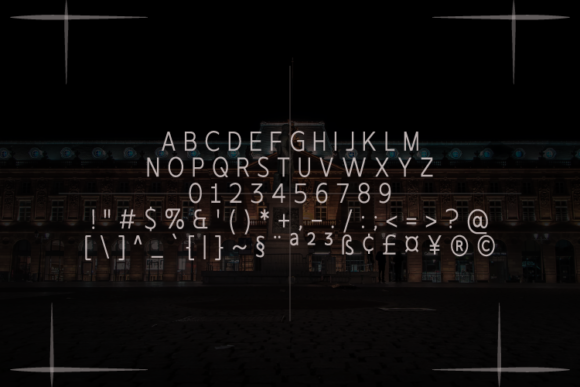
With its simple, casual, and clean feel, Arkelogue was exactly what I needed. The neat and beautiful arrangement of letters made it perfect for both formal and non-formal designs. In this article, I’ll share my experience with Arkelogue, its features, and how to make the most of it in your designs.
Arkelogue: A Closer Look
Arkelogue is a sans serif font that boasts an undeniably clean feel. Its simplicity makes it versatile and easy to pair with other design elements. Here are some key features:
- ✅ Simple and casual design
- ✅ Clean and beautiful arrangement of letters
- ✅ Suitable for both formal and non-formal designs
- ✅ Available in 10 different weights, from thin to extra black
- ✨ The clean and minimalist design makes it perfect for a wide range of projects
- ✅ The font is highly legible, even at small sizes
- ✅ The variety of weights allows for flexibility in design
While Arkelogue is an excellent font, there are a few things to keep in mind:
- ⚠️ Some of the weights may be a bit too bold for certain designs
- 🤔 Limited support for non-English languages
One of the standout features of Arkelogue is its support for OpenType features and glyphs. These allow for added creativity and flexibility in your designs. Here are a few examples:
- Stylistic alternates: swap out letters for alternative designs
- Ligatures: combine letters for a more fluid look
- Glyphs: access additional characters and symbols
The Story Behind Arkelogue
Arkelogue was designed with the goal of creating a simple, yet versatile font. The designer aimed to create a font that would be perfect for a wide range of projects, from formal to non-formal designs. With its clean feel and beautiful arrangement of letters, Arkelogue has become a go-to font for designers.
| Font Name | Arkelogue Regular Font |
| Author | Huntype |
| What is Arkelogue? | Arkelogue is a simple and casual sans serif font with a clean feel. |
| How many weights does Arkelogue come in? | Arkelogue comes in 10 different weights, ranging from thin to extra black. |
| Is Arkelogue suitable for formal designs? | Yes, Arkelogue’s clean and beautiful arrangement of letters makes it suitable for both formal and non-formal designs. |